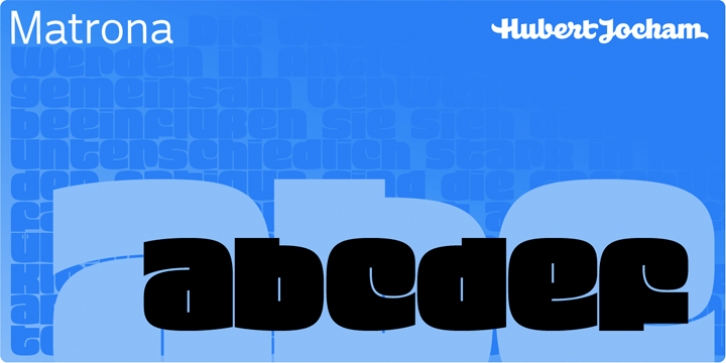
Matrona was designed by Hubert Jocham and published by Hubert Jocham Type. Matrona contains 3 styles and family package options.
When letterpress started with the Gutenberg Bible, the typeface was like a texture. Before humanism, type did not really need to be legible. The letters were rather drawn in an ornamental way. It filled a space.
My idea for Matrona was to create a similar structure. I wanted it to be very bold and still as legible as possible. The result was a headline typeface that can fill spaces. You can even fill it with a picture. Or you create an ornament with contents. There are 3 weights to extend the usage to different sizes.